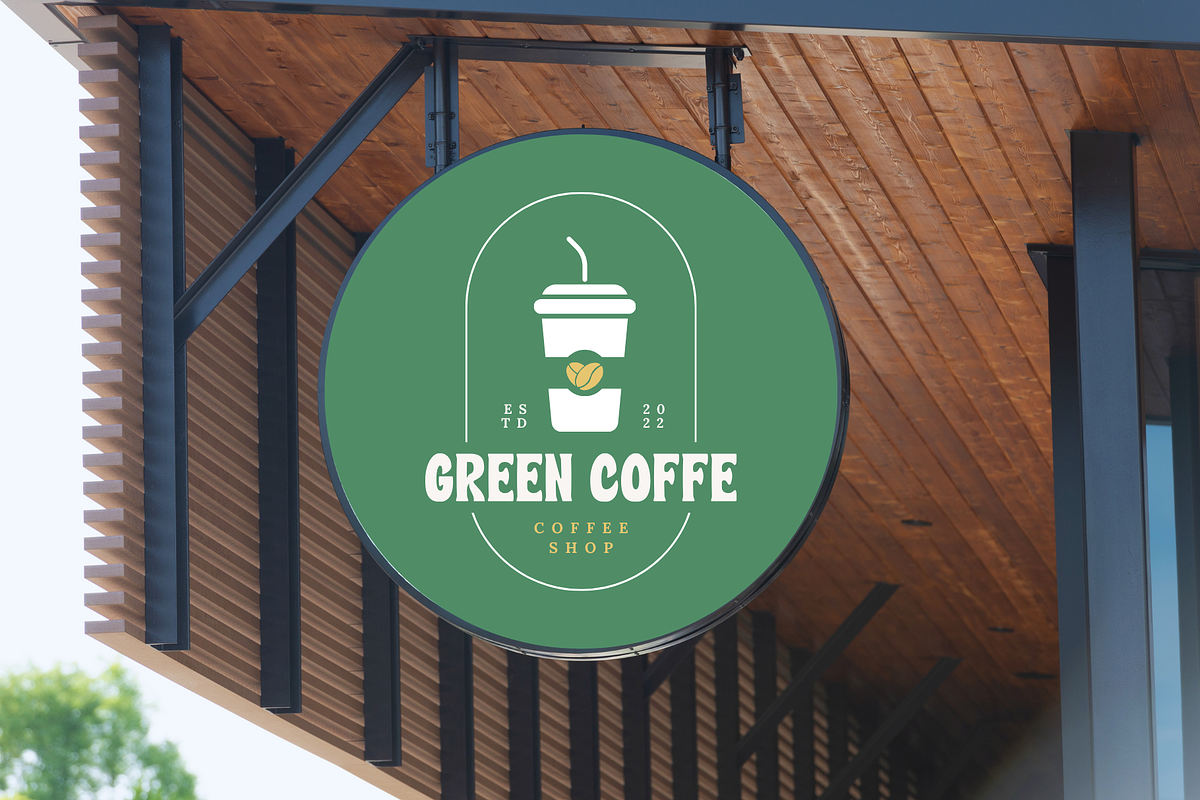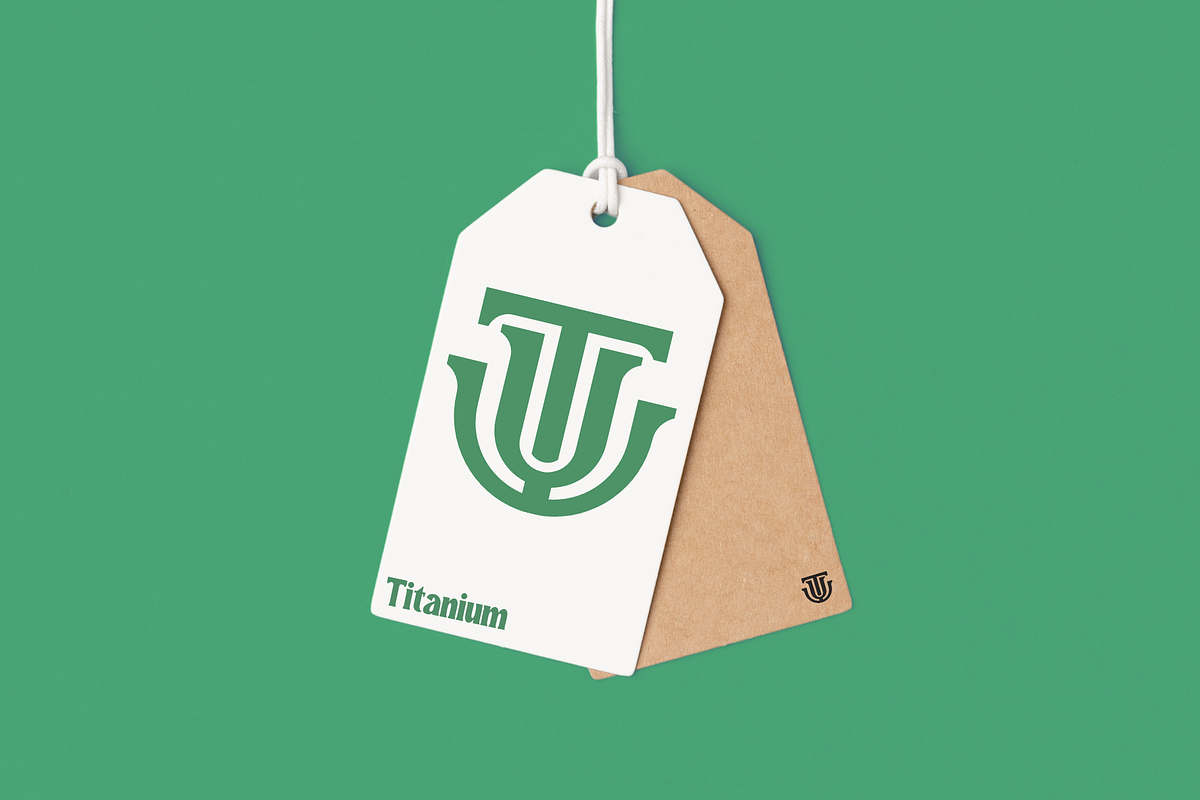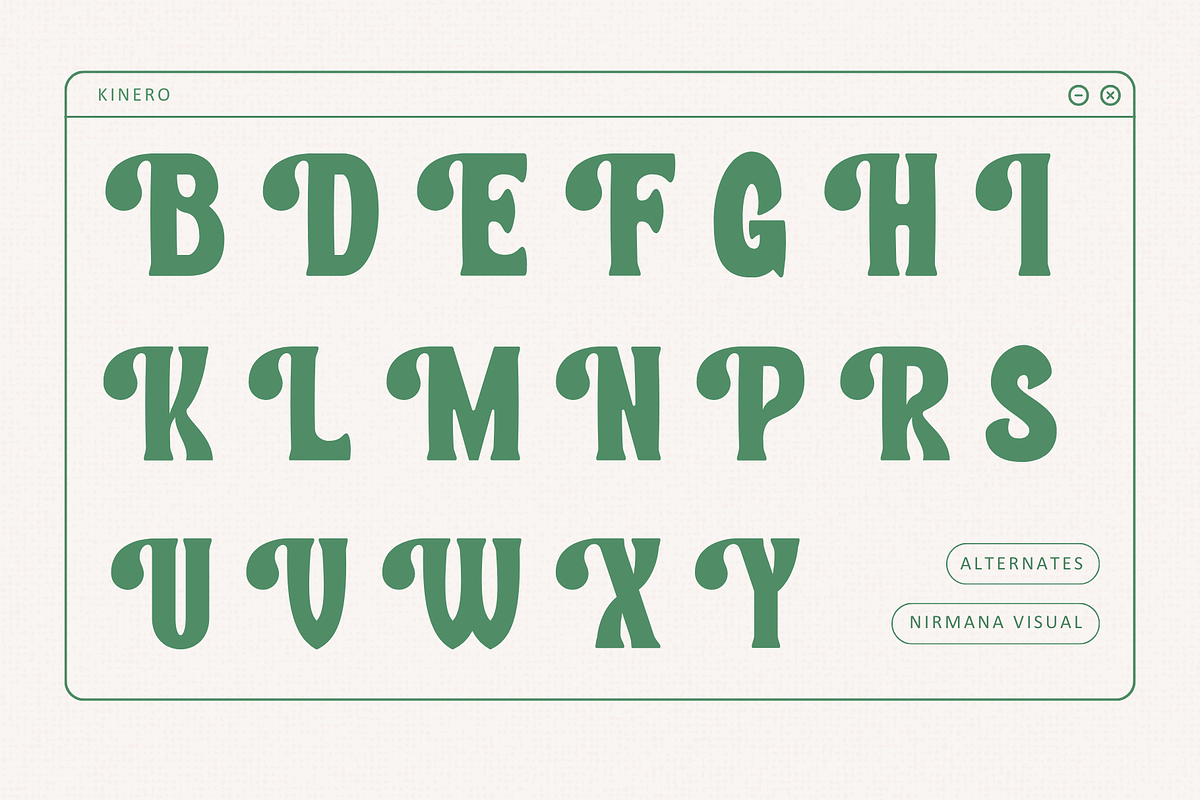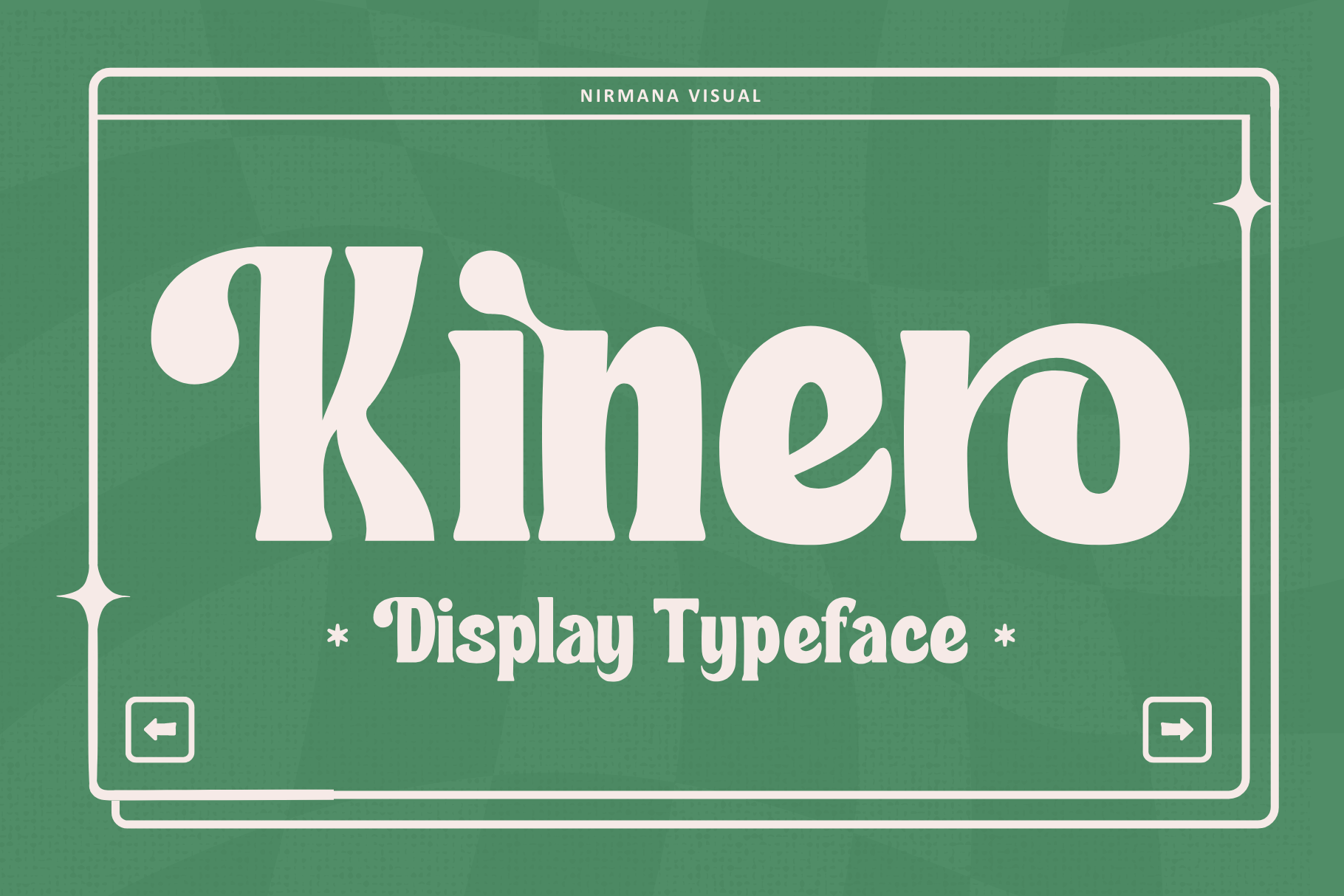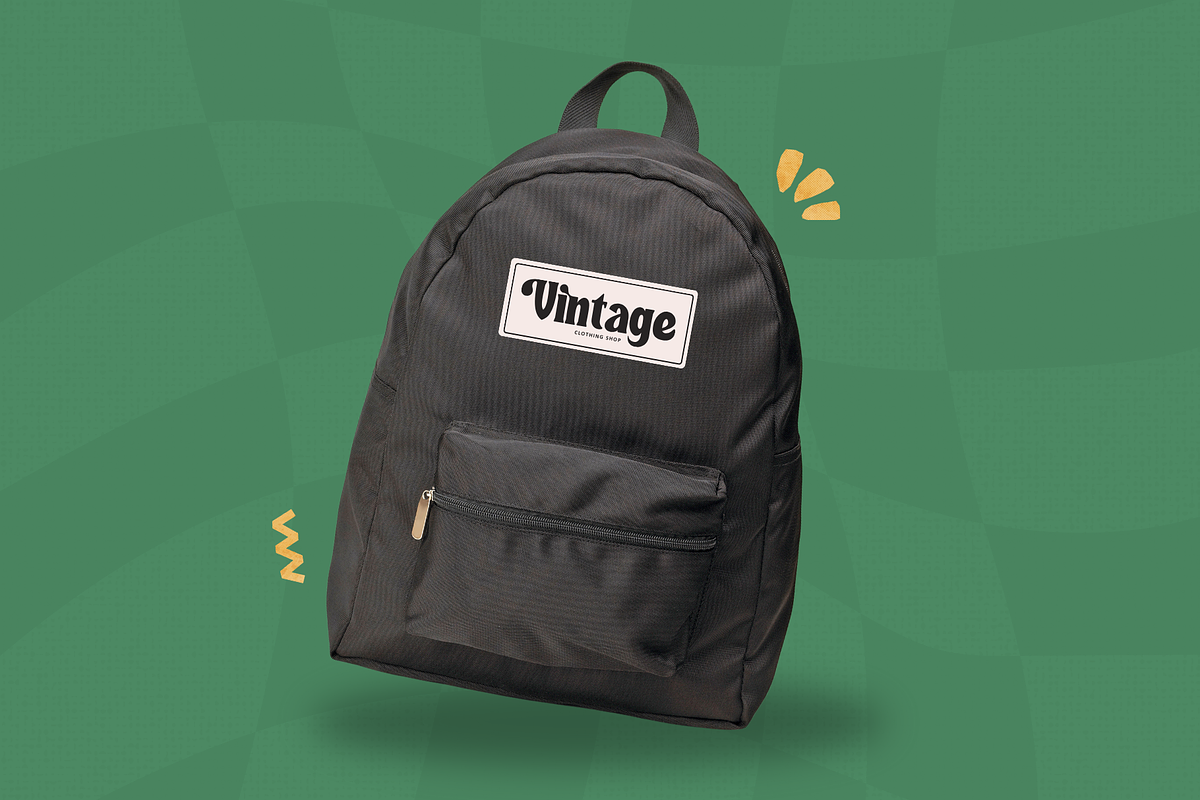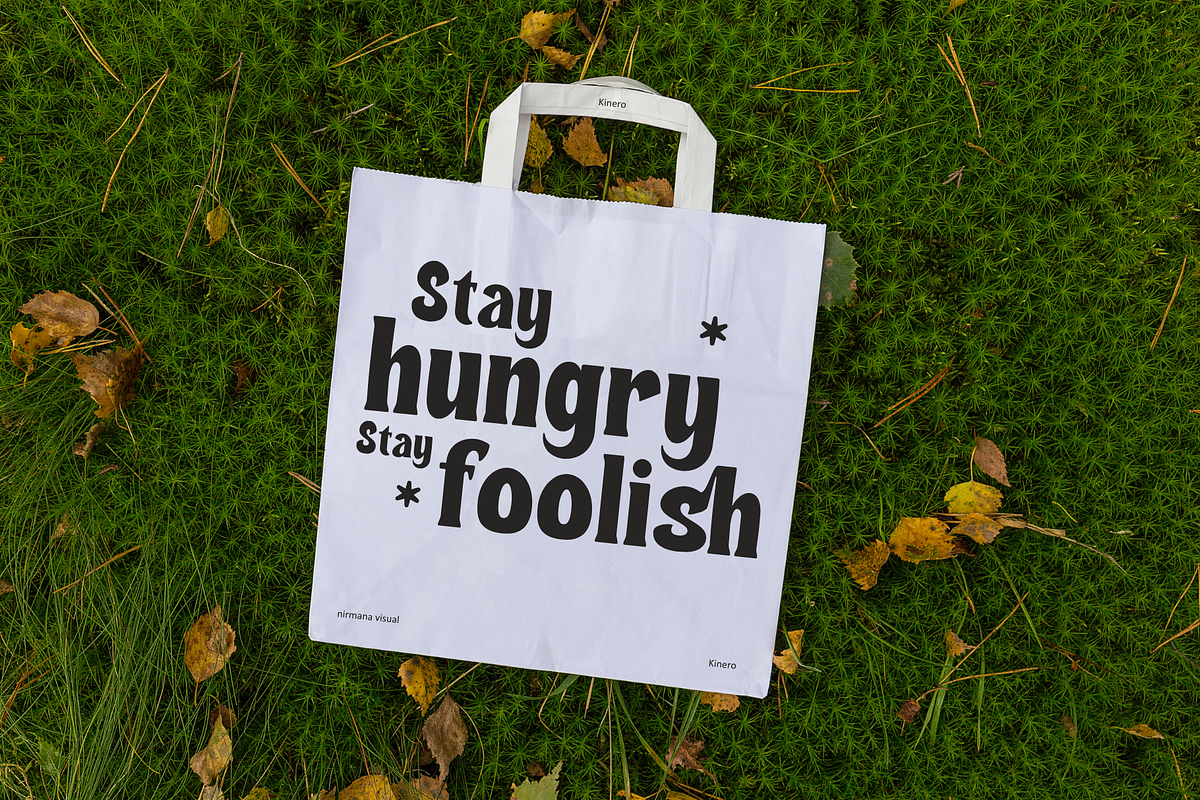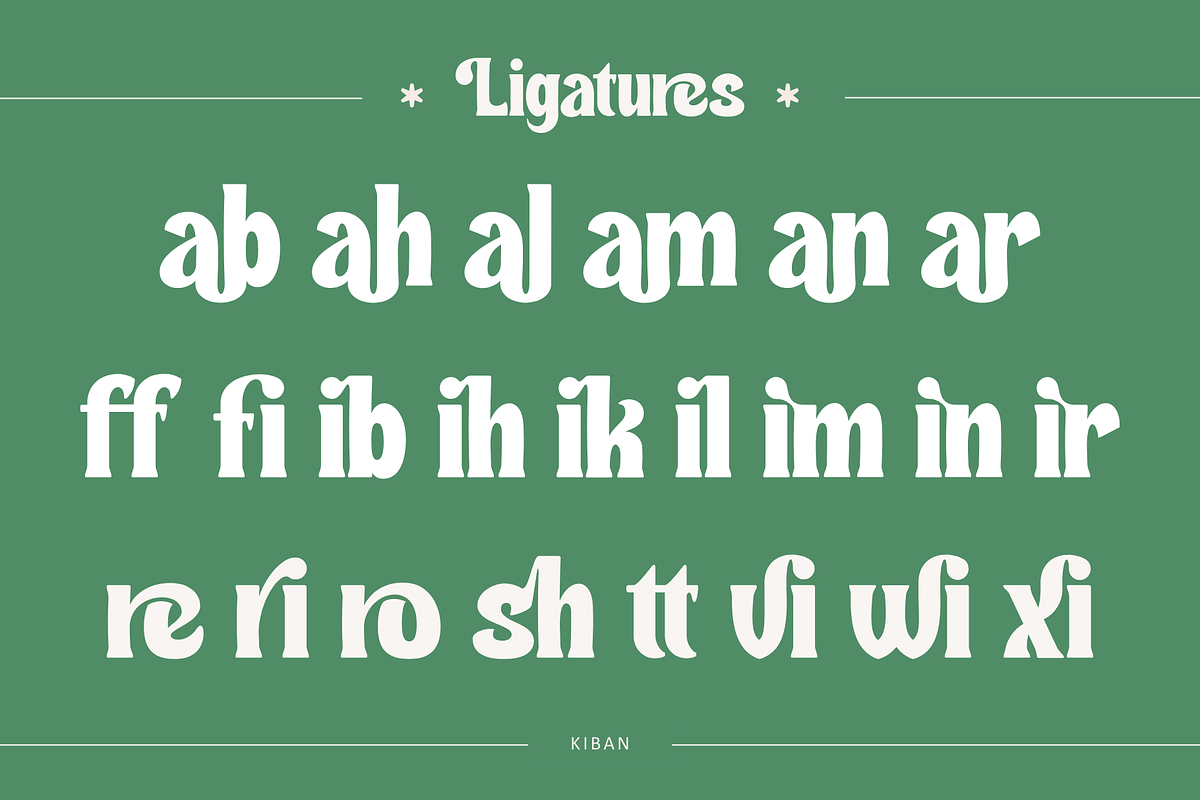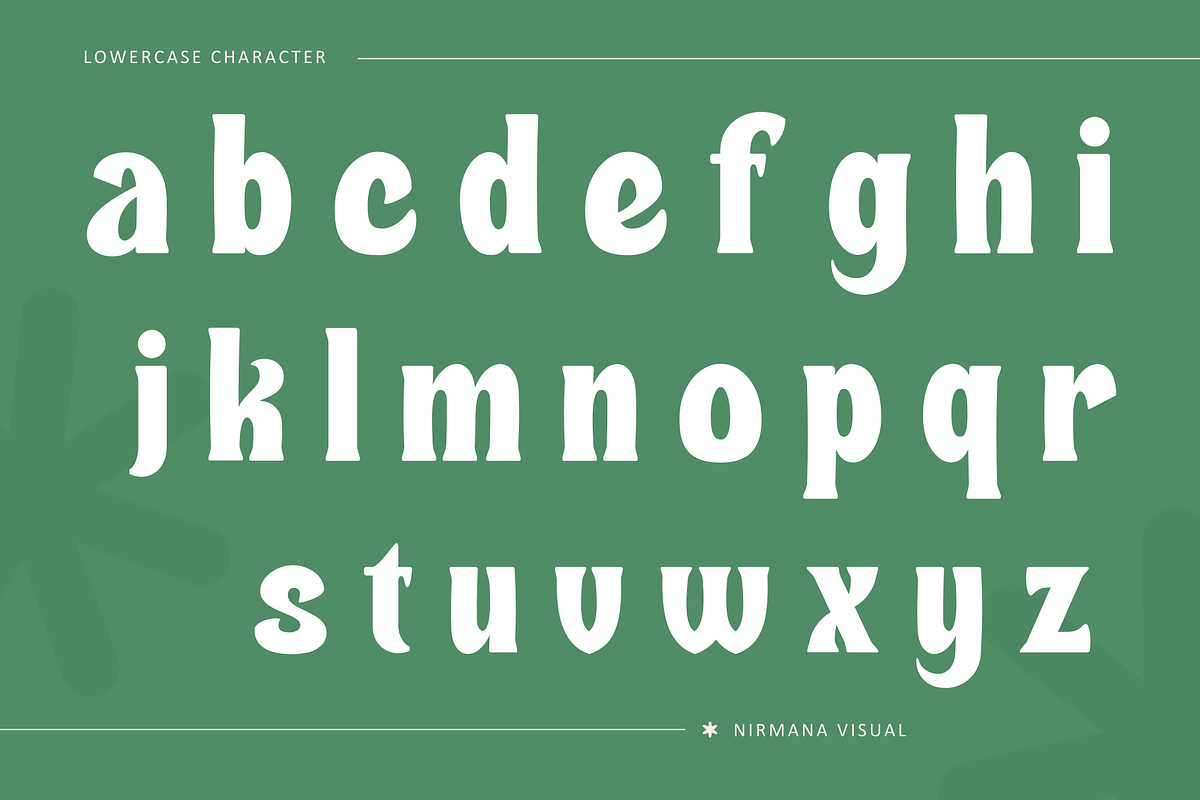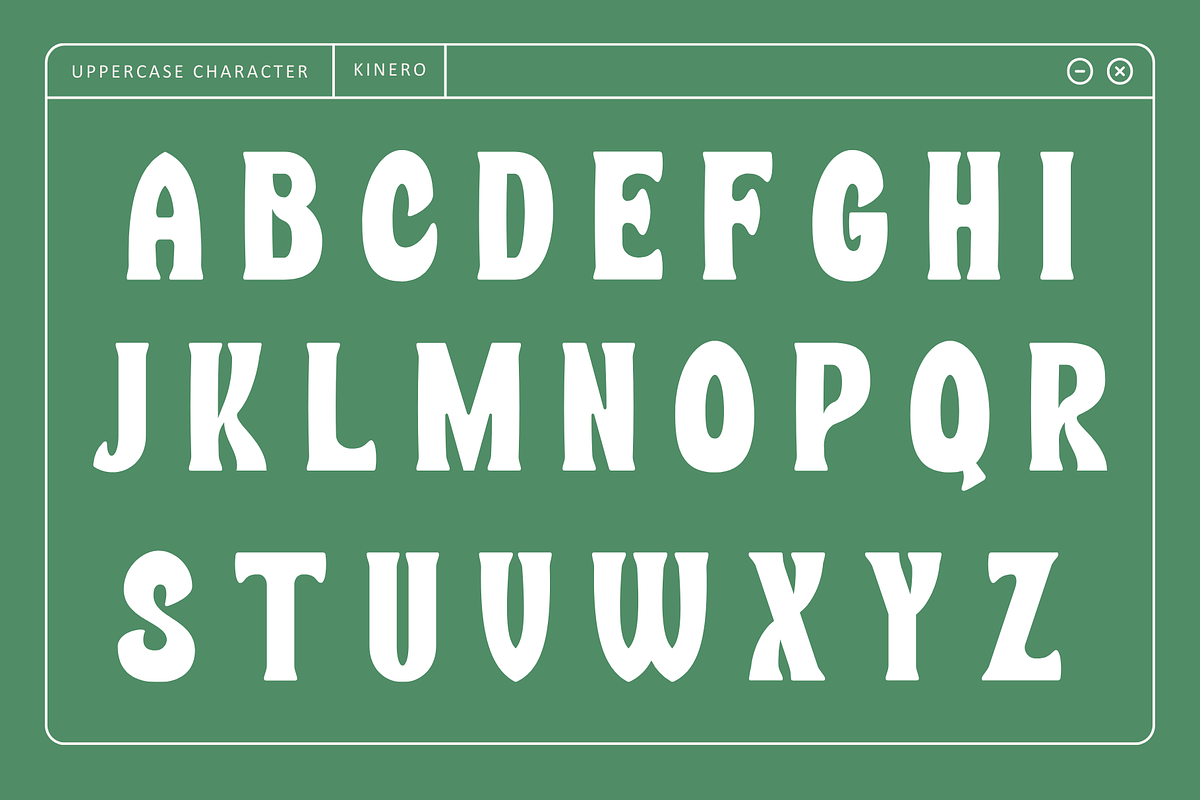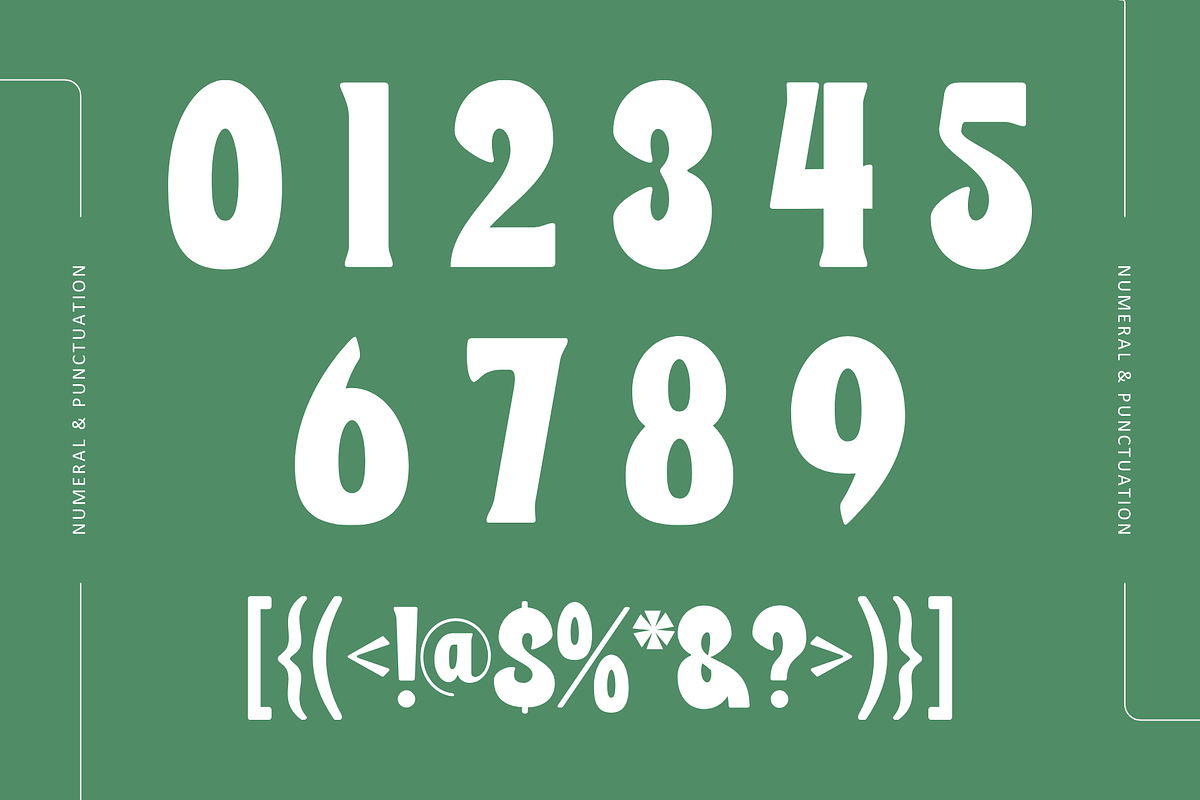
Kinero- Branding Logo Font
Kinero is a retro-inspired display typeface that combines vintage aesthetics with modern versatility. Featuring bold letterforms, intricate curves, and an extensive set of ligatures, Kinero exudes a nostalgic yet contemporary charm. Its striking presence makes it perfect for branding, posters, packaging, and editorial design. The detailed ligatures enhance typography with seamless connections, adding a unique flair to each composition. Ideal for designers seeking a timeless yet dynamic visual impact.